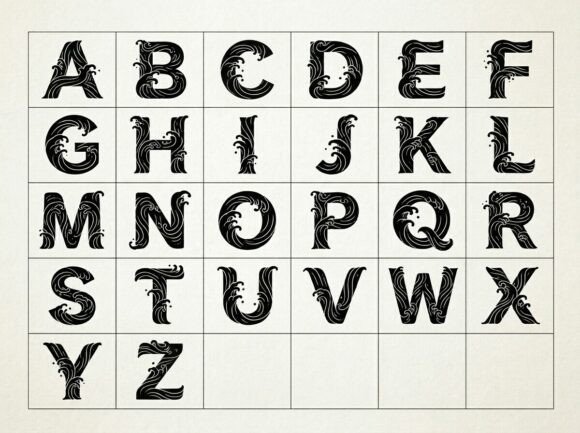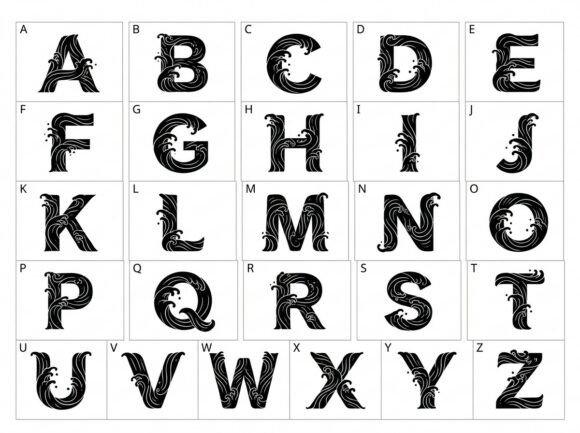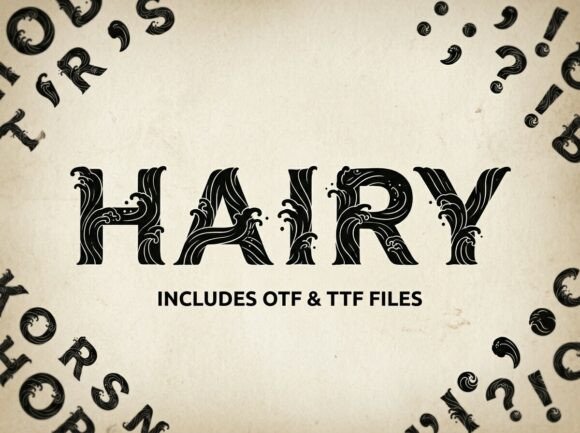
Introducing Hairy Font: A Stunning Decorative Display Font
Are you tired of using the same old fonts for your creative projects? Do you want to make a statement and add a touch of uniqueness to your designs? Look no further than Hairy Font, a decorative display font that is sure to turn heads. In this article, we’ll take a closer look at what makes Hairy Font so special and how it can elevate your designs to the next level.
Hairy Font is a stunning decorative display font designed to be the center of attention. With its unique artistic elements and strong visual personality, this font is perfect for creators who want to break away from the ordinary. Whether you’re working on a bold headline, artistic logo, or creative packaging, Hairy Font is versatile enough to make a lasting impression while maintaining a professional and polished finish.
⚠️ IMPORTANT NOTE BEFORE PURCHASE: Hairy Font is an ALL-CAPS (Uppercase Only) display typeface. This means that it does not include lowercase letters. It is specifically designed for high-impact headlines, logos, and decorative initials where every letter is a work of art.
Hairy Font is perfect for designers and crafters who want to add a touch of personality to their work. Whether you’re creating:
- Bold Headlines: Use Hairy Font to create eye-catching headlines that grab attention.
- Artistic Logos: Use Hairy Font to create unique and memorable logos that reflect your brand’s personality.
- Creative Packaging: Use Hairy Font to add a touch of elegance and sophistication to your packaging designs.
Why Choose Hairy Font?
So why choose Hairy Font over other decorative display fonts? Here are just a few reasons:
- Unique Artistic Elements: Hairy Font features unique artistic elements that set it apart from other fonts.
- Strong Visual Personality: This font has a strong visual personality that is sure to make a lasting impression.
- Versatile: Hairy Font is versatile enough to use for a variety of design projects.
- Professional and Polished Finish: Despite its decorative nature, Hairy Font maintains a professional and polished finish.
In conclusion, Hairy Font is a stunning decorative display font that is perfect for designers and crafters who want to add a touch of uniqueness to their work. With its unique artistic elements, strong visual personality, and versatility, this font is sure to elevate your designs to the next level. So why wait? Purchase Hairy Font today and start creating stunning designs that demand attention!
- ALL-CAPS (Uppercase Only) display typeface
- Unique artistic elements
- Strong visual personality
- Versatile for bold headlines, artistic logos, and creative packaging
- Professional and polished finish